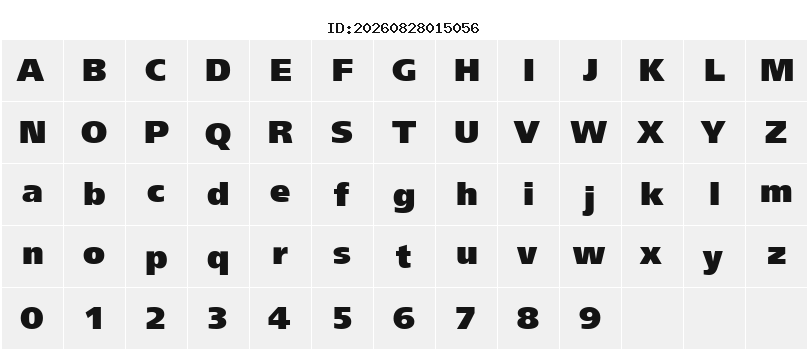
TrueFrutigerUltraBlack Preview
• Font Name: TrueFrutigerUltraBlack
• Full Font Name: TrueFrutigerUltraBlack Regular
About TrueFrutigerUltraBlack.ttf
TrueFrutigerUltraBlack.ttf is a modern, elegant sans-serif font designed for ultimate readability and visual harmony. Perfect for branding, headlines, web design, and print materials.